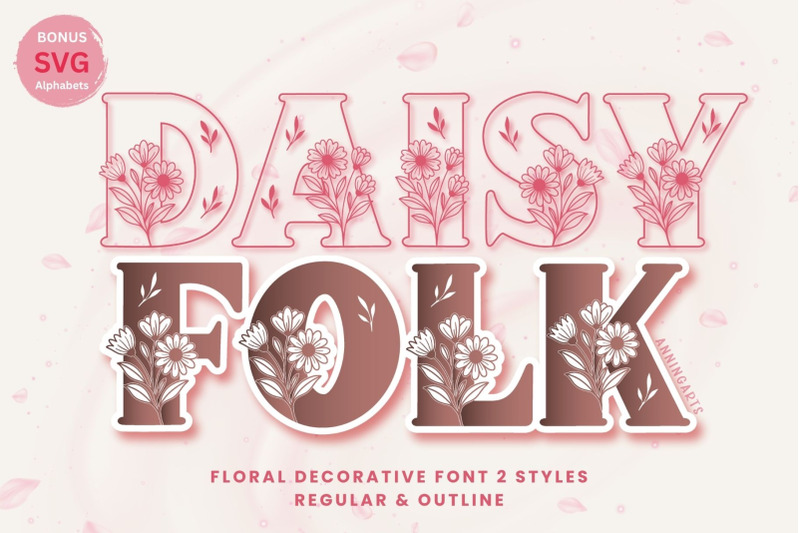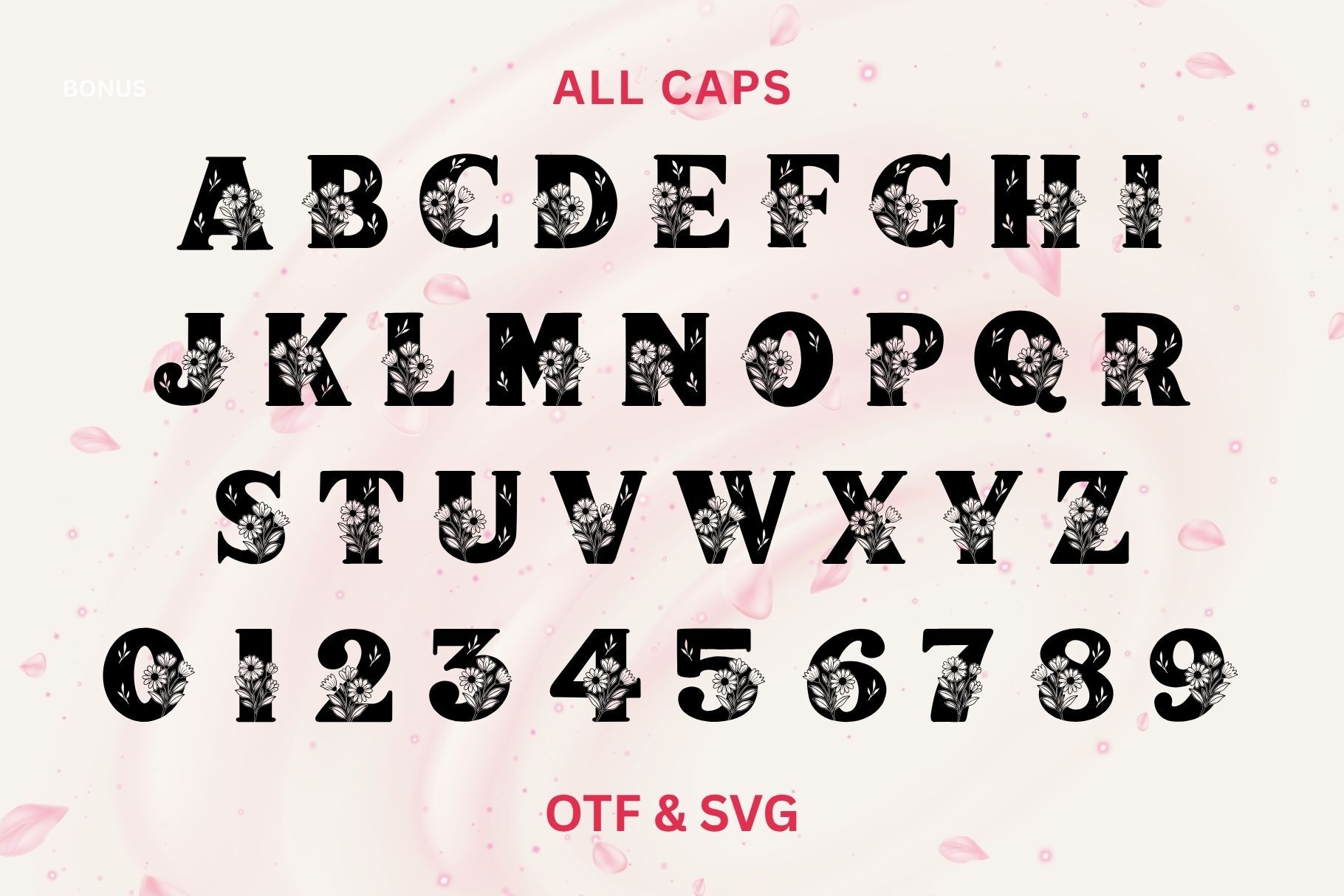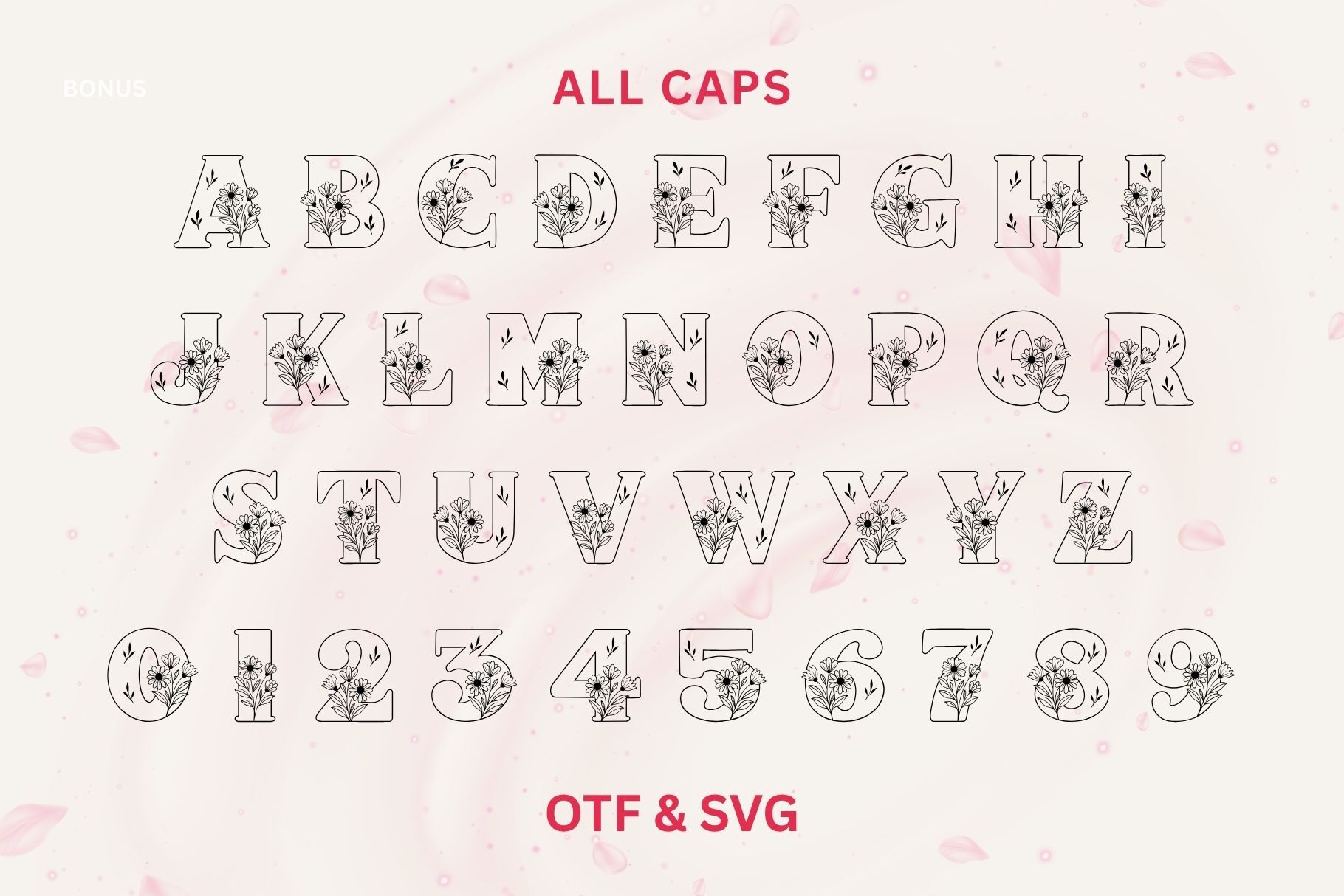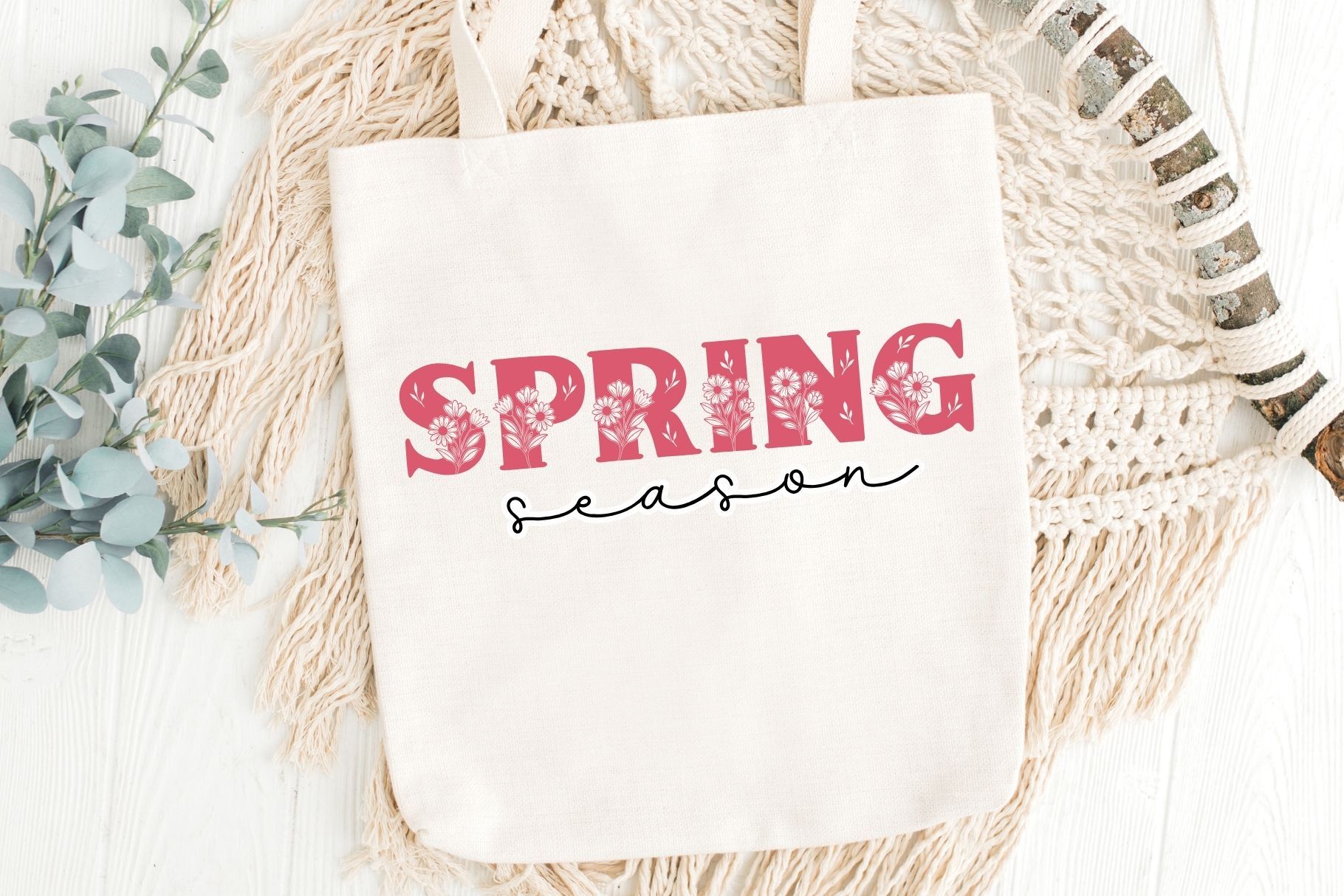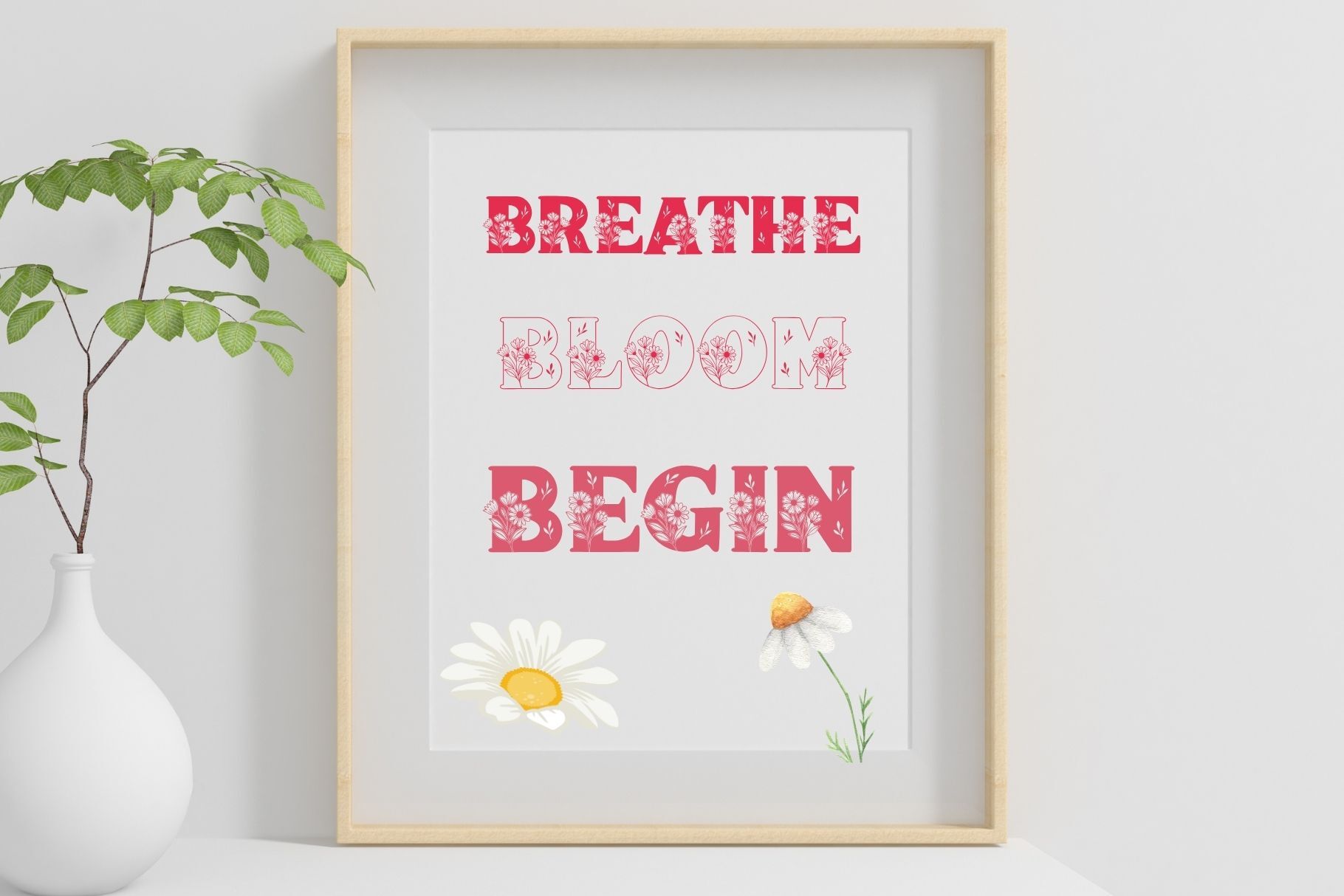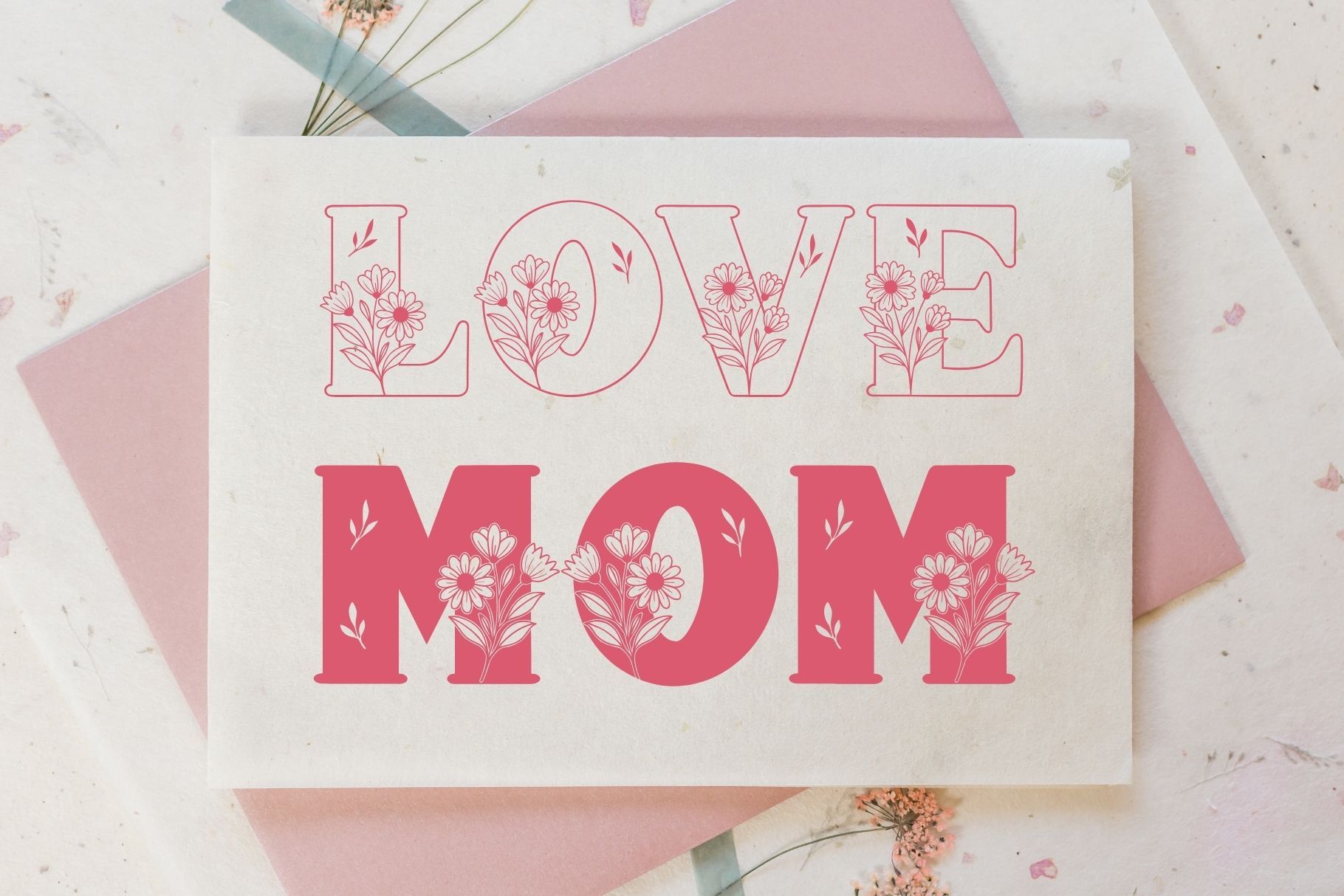
Daisy Folk Font Duo
Introducing Daisyfolk – A Romantic Floral Decorative 2 styles inspired by the charm of wild daisies and boho country aesthetics. This set includes two stunning styles: – Regular: A bold filled font with blooming daisy accents – Outline: A clean, minimalist outline version with the same whimsical charm   Perfect for wedding stationery, spring designs, Cricut crafts, greeting cards, wall art, tote bags, T-shirts, and more. Each letter is carefully illustrated with floral motifs that evoke calm, joy, and handmade vibes.   Add a fresh & heartwarming touch to your designs with this botanical serif beauty!